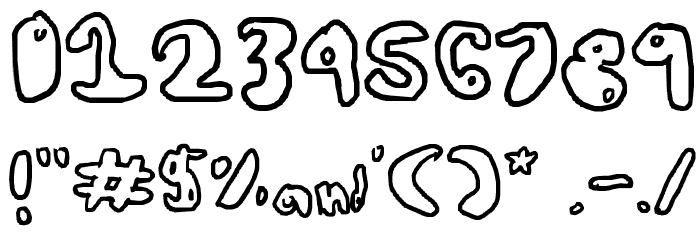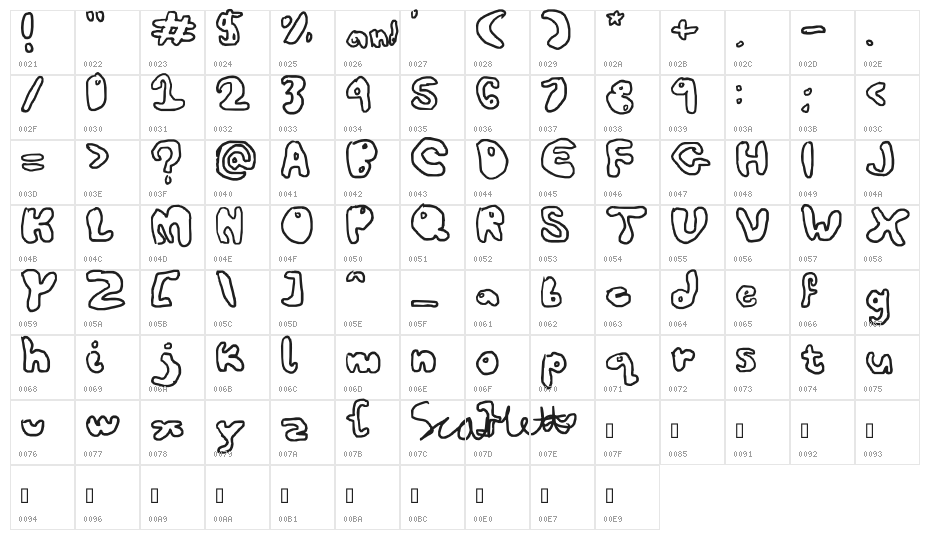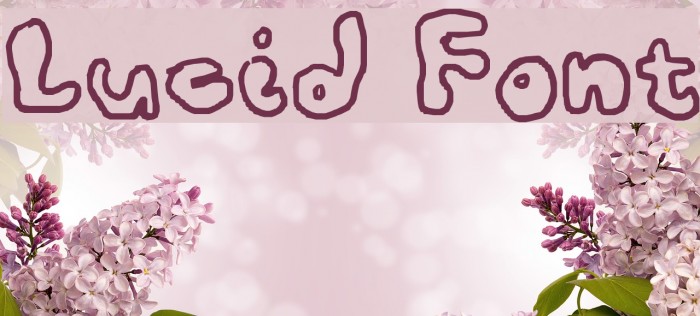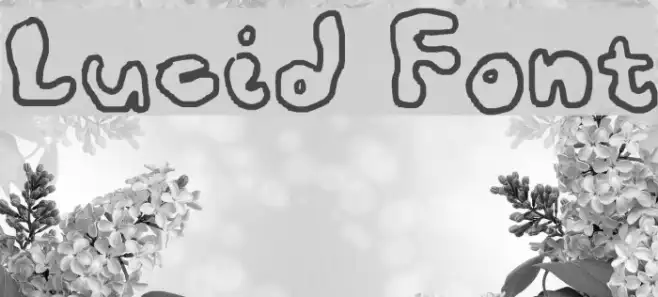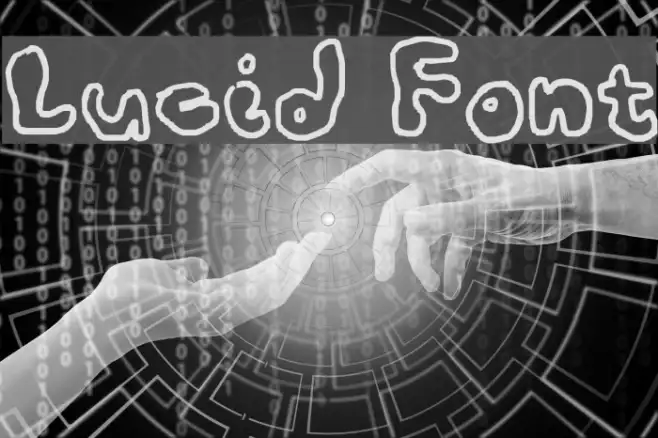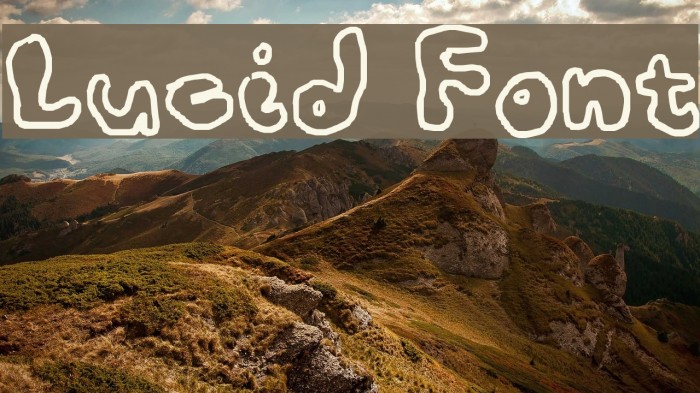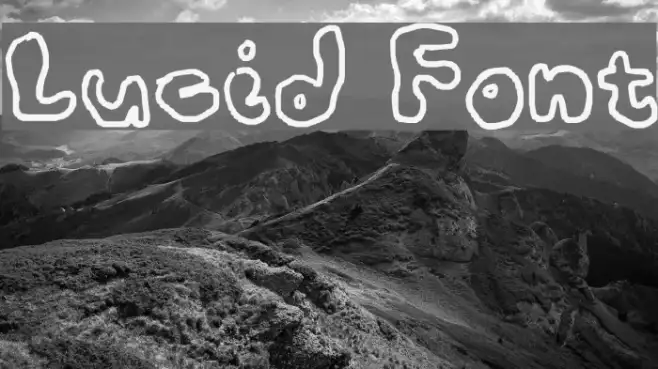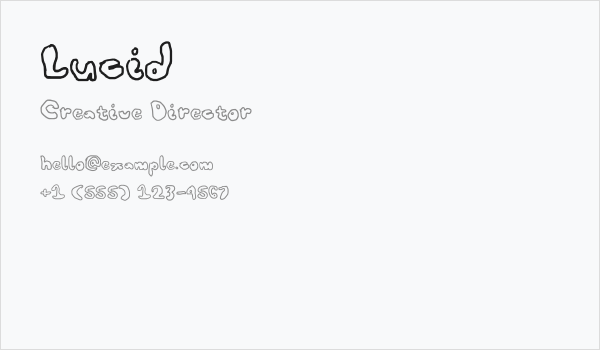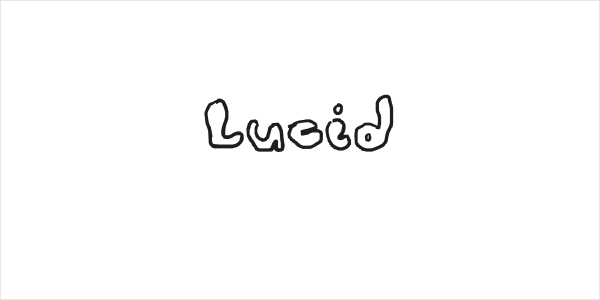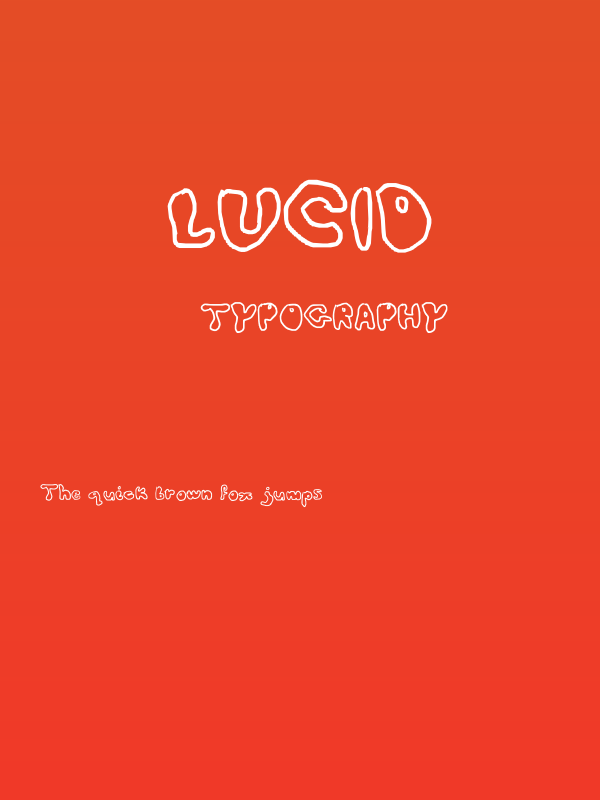
Lucid Font
Lucid Description
This playful and bold font features a hand-drawn, bubble-like style that is both eye-catching and whimsical. Each character is outlined with a thick, uneven stroke, giving it a casual and informal appearance. The letters have a rounded, organic shape, reminiscent of doodles or graffiti, which adds to its charm and uniqueness. The font maintains a consistent thickness throughout, with minimal contrast in stroke width. Its quirky and fun design makes it ideal for creative projects that require a touch of personality and flair.
| Overall Style | Whimsical |
| Proposed Projects | Ideal for children's books, comic strips, playful branding, party invitations, and creative posters. |